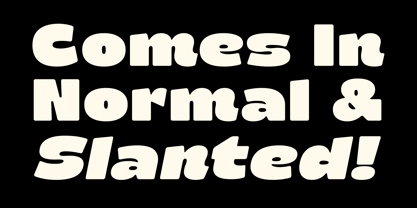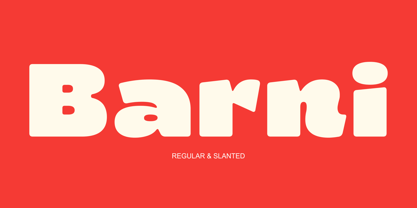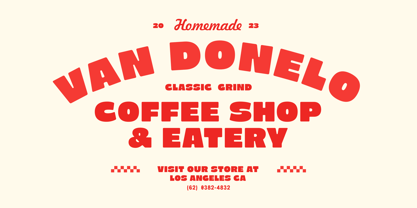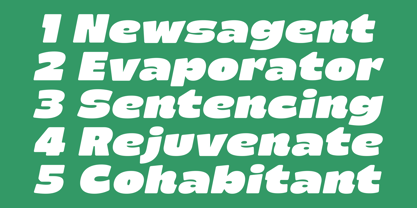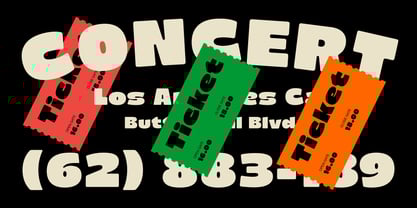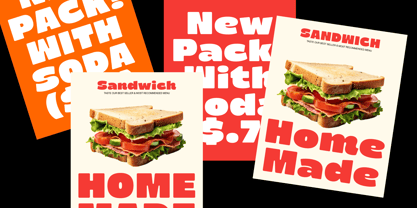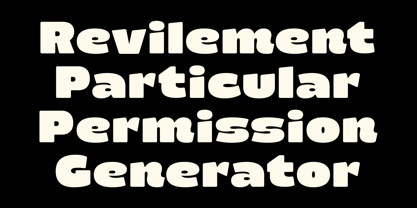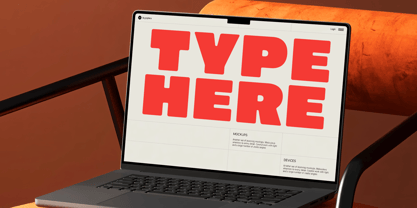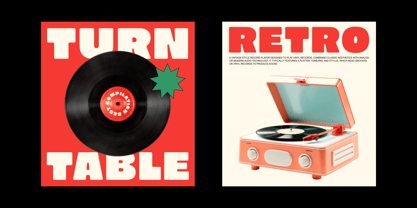
Barni
The Barni Font Family was designed by Bagus Arya Kirana and published by Genetype. Barni contains 2 styles and family package options. More about this family
Introducing Barni – Bold Retro Groovy Font Barni is a bold and bubbly retro display font inspired by the fun spirit of 70s and 80s design. With chunky curves, smooth edges, and playful proportions, Barni brings a nostalgic yet fresh look to your typography projects. Perfect for logos, posters, food packaging, headlines, coffee shop branding, t-shirts, and social media visuals, Barni instantly gives any design a friendly, confident, and eye-catching vibe. This font comes in two styles: Regular and Slanted, giving you flexibility to match both vintage and modern aesthetics. It includes uppercase and lowercase letters, numbers, punctuation, and multilingual support Barni is ideal for designers who want to capture a retro, groovy, and fun personality — perfect for café menus, retro product packaging, music or fashion branding, and vibrant creative projects that demand attention.